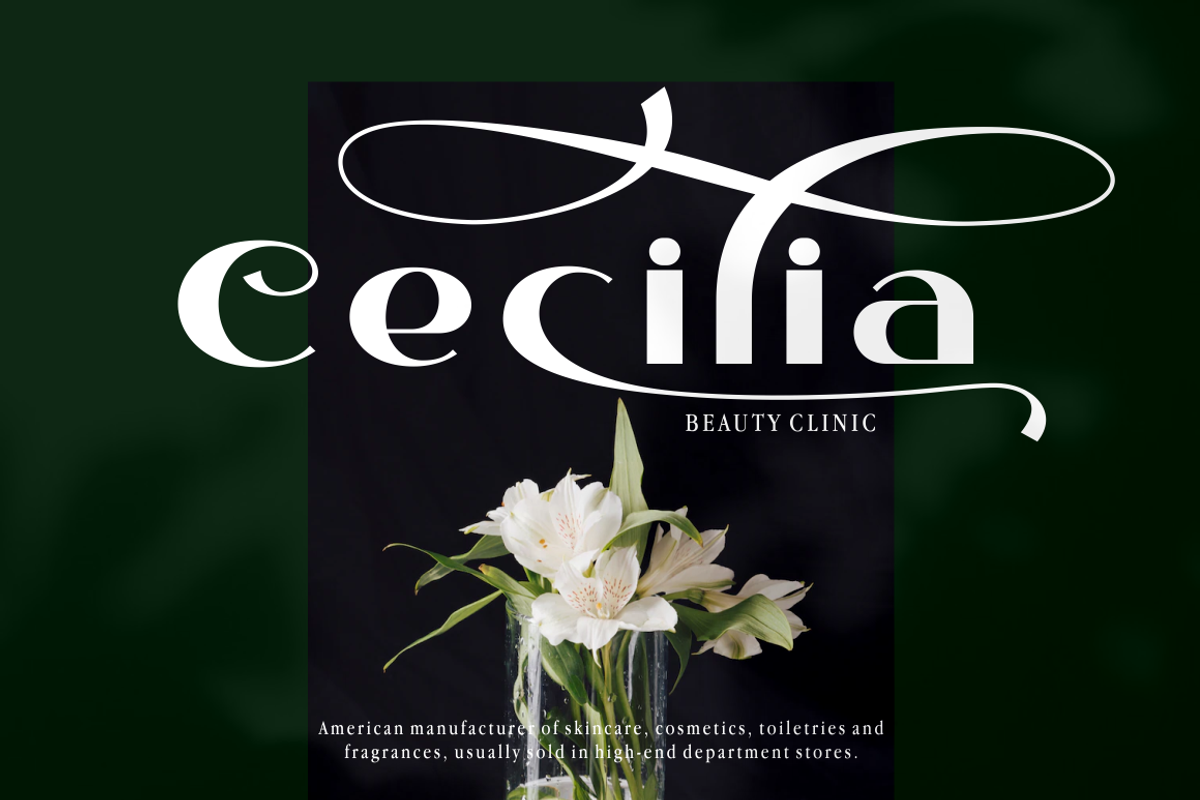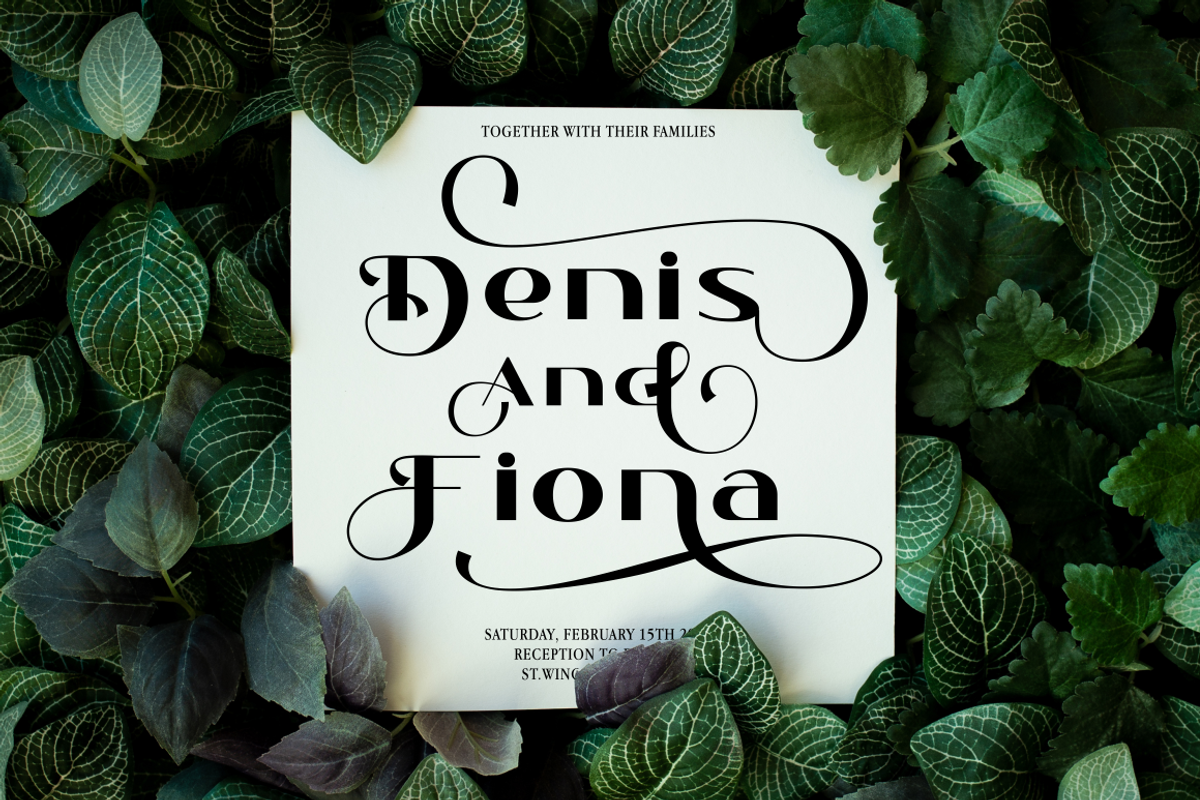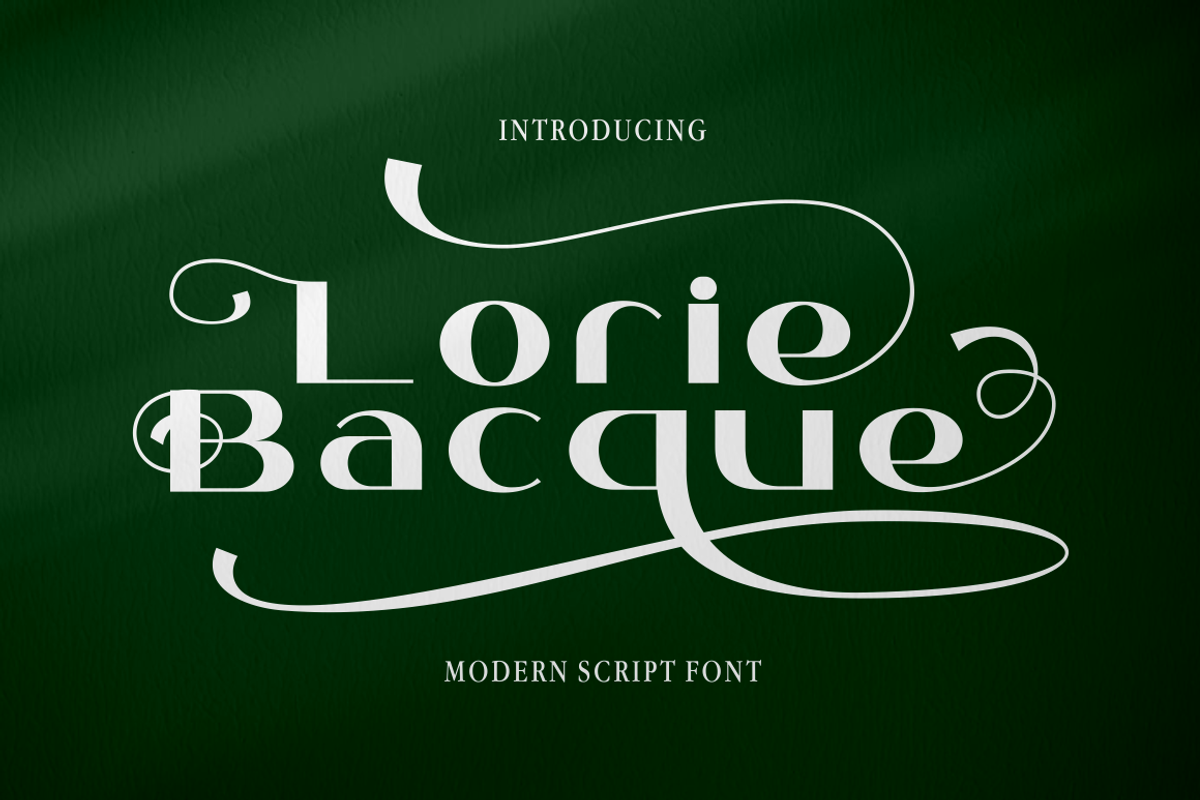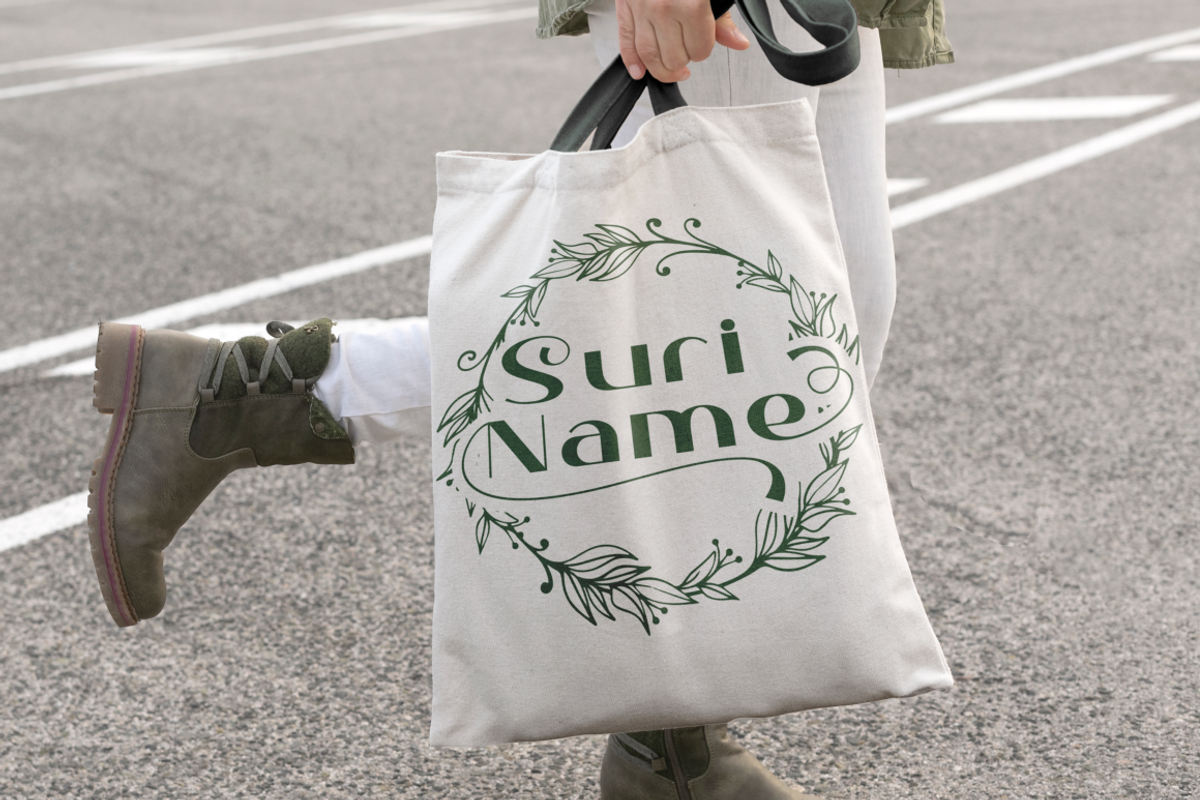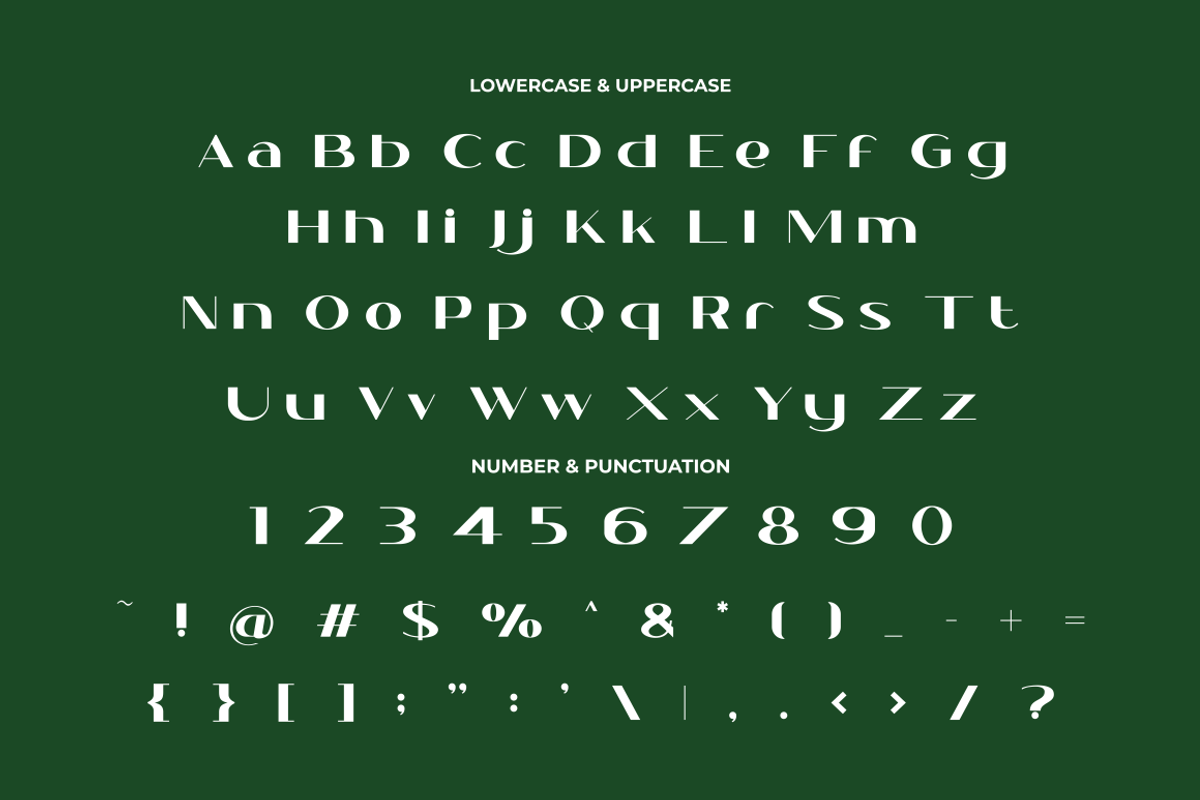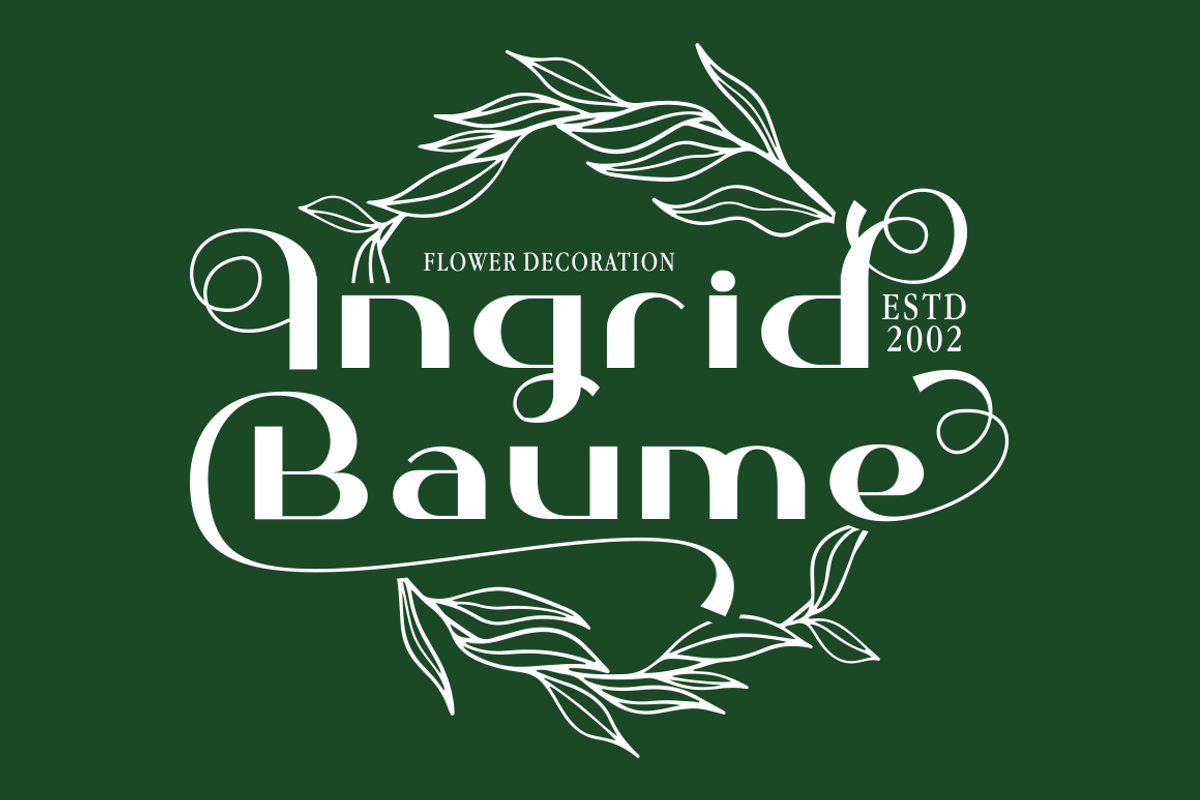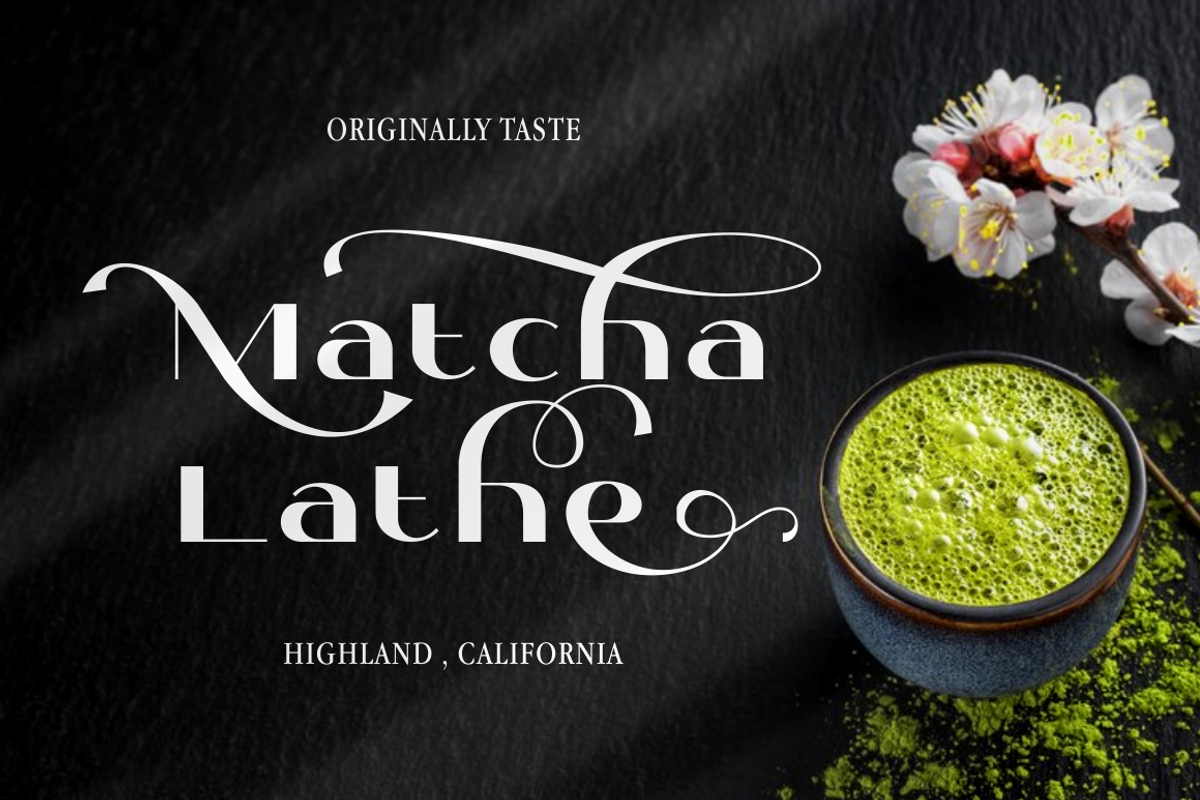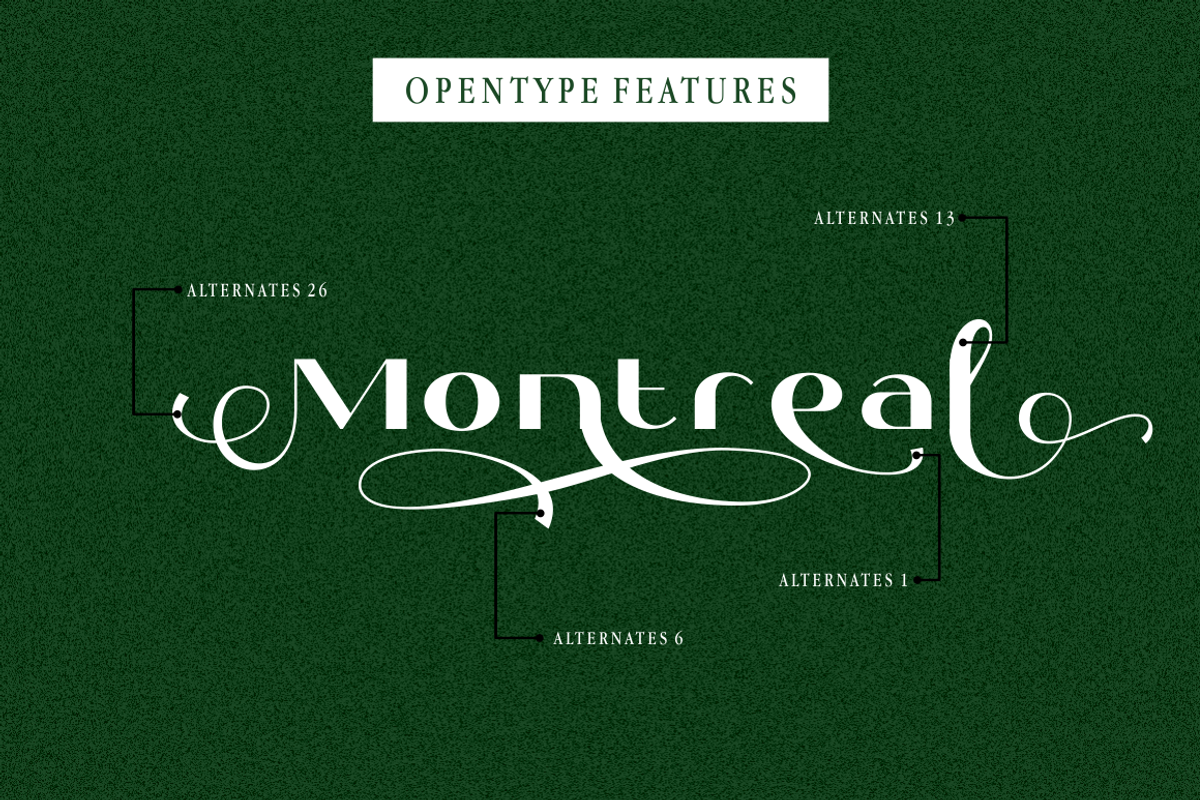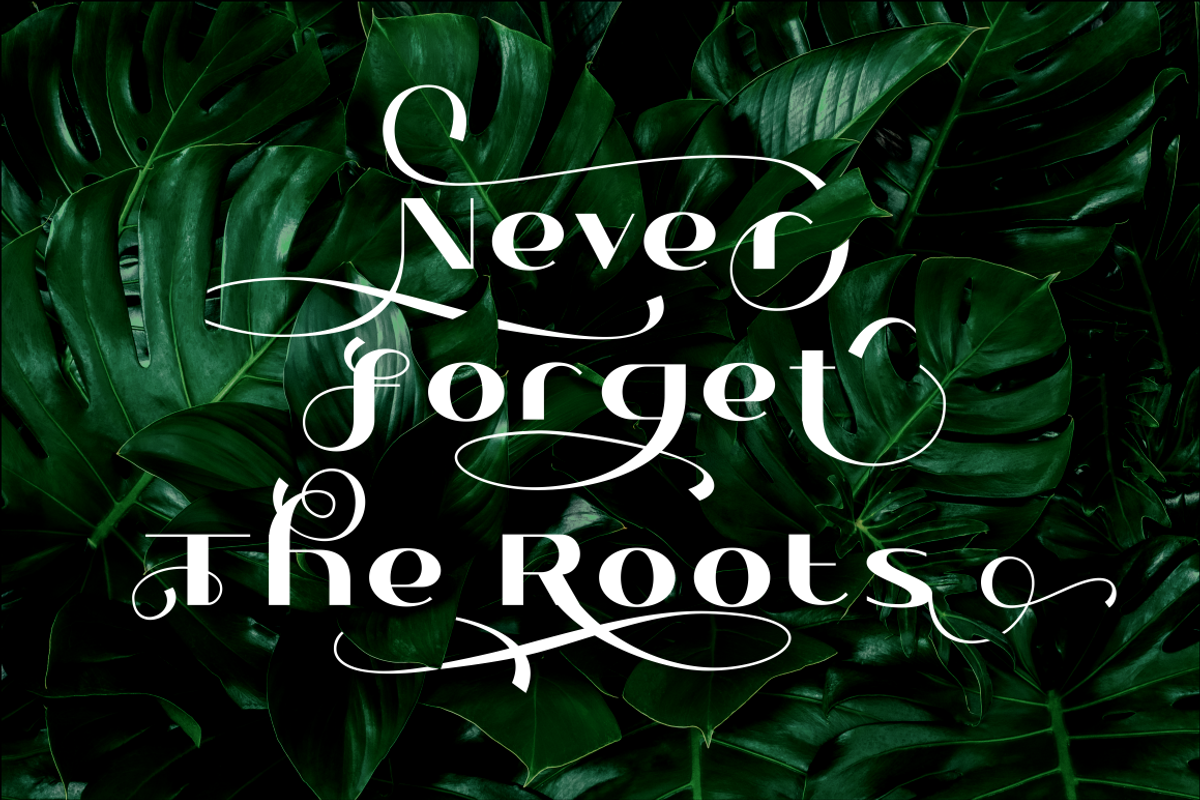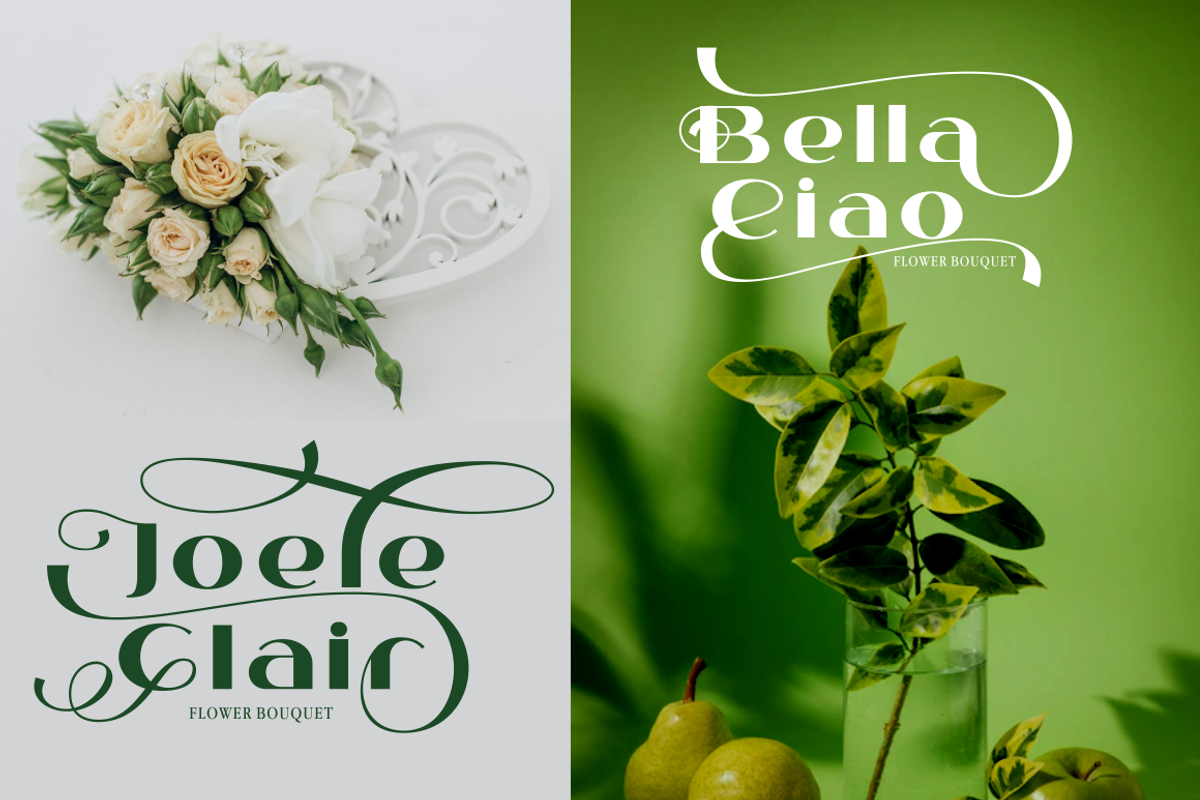
Lorie Bacque - Modern Sans Font
Lorie Bacque - Modern Sans Font is a sleek and elegant font that embodies a modern and luxurious style. With its abundance of alternative characters, long swirls, graceful curves, and clean lines, this font offers versatility and creative possibilities for various design projects. Lorie Bacque is a perfect choice for creating sophisticated logos, elegant wedding invitations, stylish cards, refined branding materials, personalized names, greeting cards, and other applications that require a touch of flourish and elegance.
The modern and luxurious style of Lorie Bacque brings a contemporary edge to your designs, while its elegant curves and clean lines add a sense of sophistication. The font's long swirls and alternative characters provide an artistic and refined touch, making it stand out in any application. Whether you're designing a high-end logo, crafting an elegant wedding invitation, or creating personalized cards, Lorie Bacque will elevate your designs with its chic and modern appeal.
With Lorie Bacque - Modern Sans Font, your design projects will radiate modern elegance and sophistication. Its luxurious style and alternative characters offer a wide range of design options, making it suitable for any application that requires a touch of refined flourish. Whether you're working on branding materials, crafting personalized cards, or designing elegant wedding stationery, Lorie Bacque will add a chic and artistic flair that elevates your designs to a new level of elegance and visual appeal.